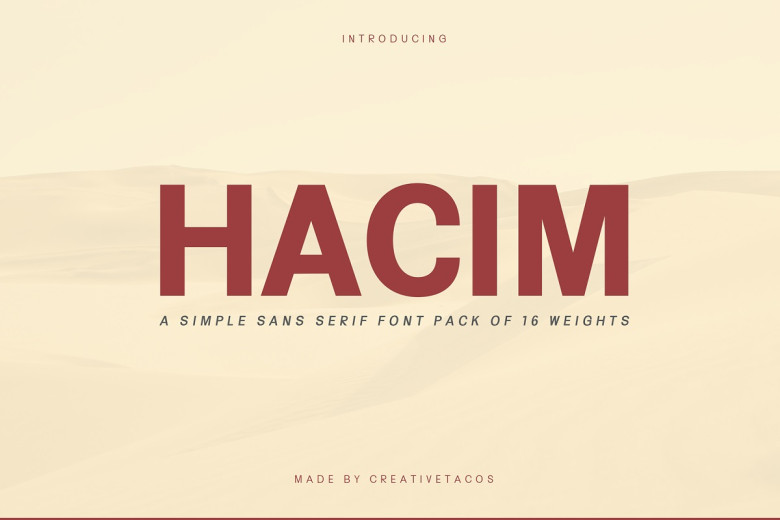
Hacim Font
Hacim is a modern geometric rounded sans serif typeface which contains 16 weights featuring full basic glyph set with multilingual support. This USA-made Hacim is suitable for publishing editions, packaging labels, from welcoming to greeting cards, various presentations, logos quotes headlines lettering posters, branding design titles magazines headings web layouts art quote typography advertising and invitations, packaging design books also book title almost any kind of creative work.
Hacim Sans Serif Font